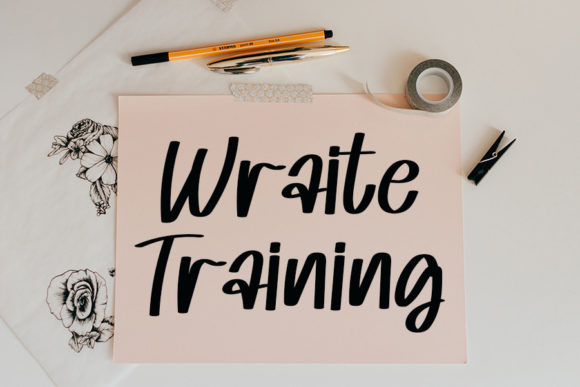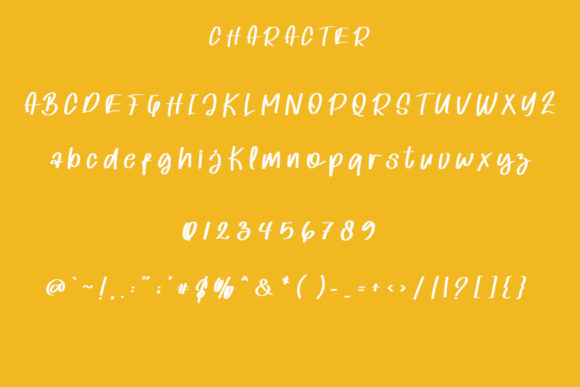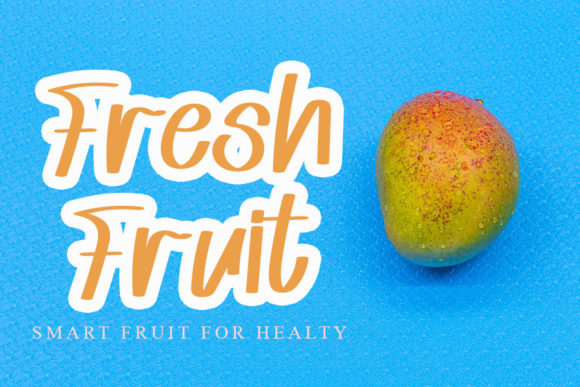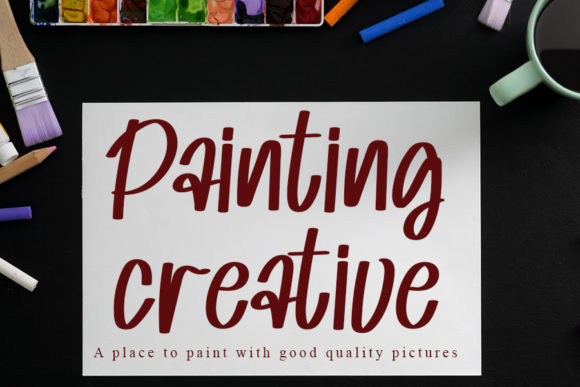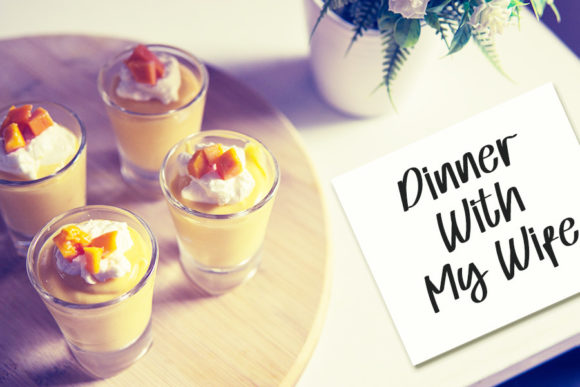
Introduction to Mango Juice Font
Remember the excitement of stumbling upon a hidden design gem that perfectly captures the essence of your creative project? For designers, this feeling is what drives us to keep pushing the boundaries of innovative design. And, we’re thrilled to introduce you to one such gem – the Mango Juice Font. This cool, quirky, and thick lettered handwritten font is a game-changer for designers looking to add a stylish touch to their headlines and logotype projects.
Key Features of Mango Juice Font
- High-quality, unique font design perfect for creative projects and designs.
- Includes multiple font styles, including bold and italic, to add depth and variety to your designs.
Honest Review: Mango Juice Font
- What works well: The font has a unique, playful vibe that’s perfect for creative projects, and the transparent background makes it easy to layer with other design elements. ✨ The font is also highly customizable, allowing for a wide range of sizes and styles.
- What could be improved: ⚠️ One potential limitation is the font’s limited character set, which may not be suitable for projects that require a wide range of special characters or languages.
Mango Juice Font